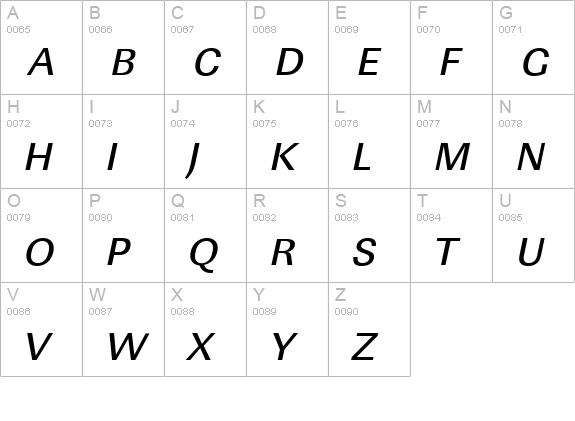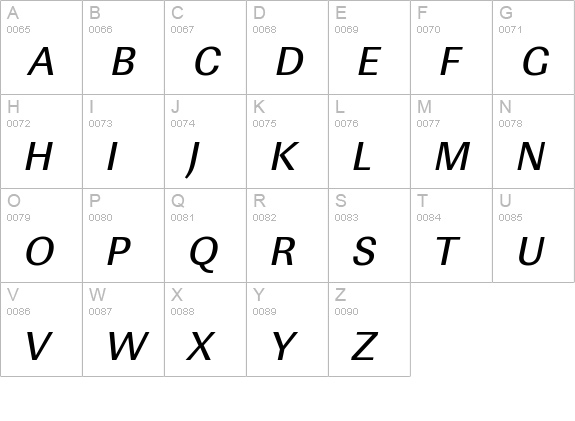
LinearStd-Medium-Italic is a balanced, medium-weight, italic variant in the LinearStd typeface family \xE2\x80\x94 well suited to sub-headlines, navigation, and balanced editorial work.
LinearStd-Medium-Italic is a versatile and elegant font that combines modern design with traditional elements. Its medium weight and italic style give a sophisticated and professional look to any text. The slanted letters add a touch of dynamism and movement, making this font perfect for conveying a sense of energy and creativity. What sets LinearStd-Medium-Italic apart is not only its aesthetic appeal but also its accessibility. This font is available for free download at FontsMarket.com, making it easy for designers, creatives, and anyone looking to elevate their projects with a high-quality typeface without breaking the bank. Whether you're working on a branding project, website design, or print materials, LinearStd-Medium-Italic is a reliable choice that will help you achieve a polished and stylish result.